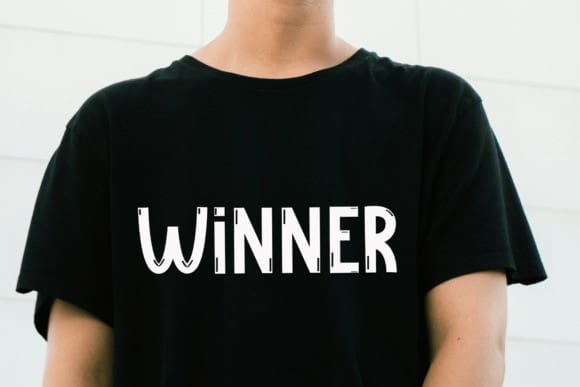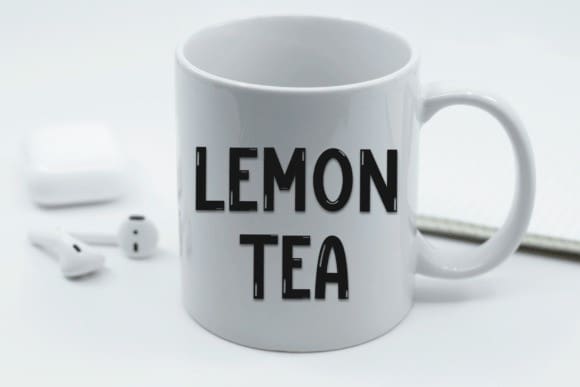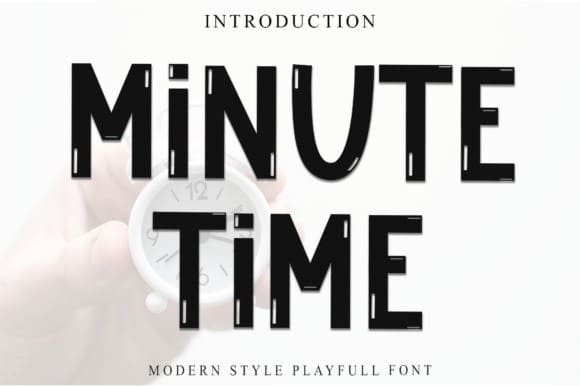
Minute Time Font
Minute Time Font is a shiny, bold display font with a modern and eye-catching style. Its strong, clear letters make it perfect for titles and headlines that need to stand out. The glossy finish adds a touch of sleekness, making it great for attention-grabbing designs.